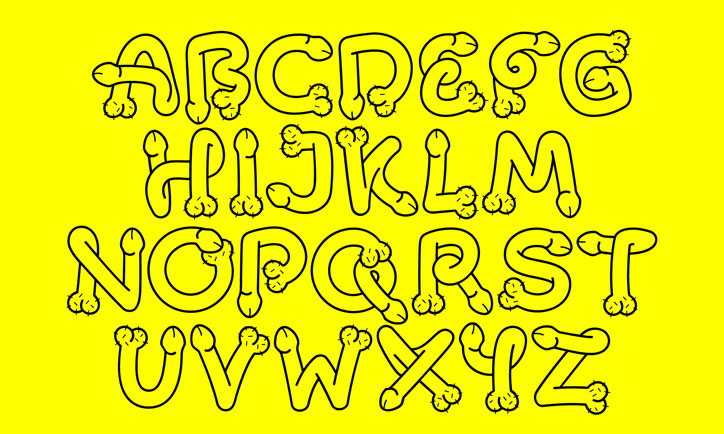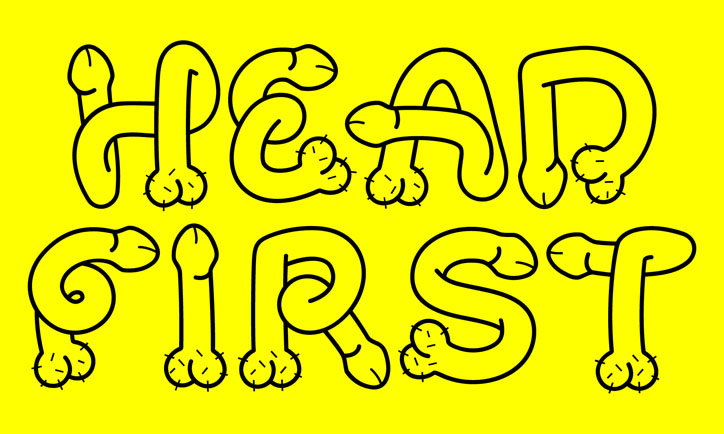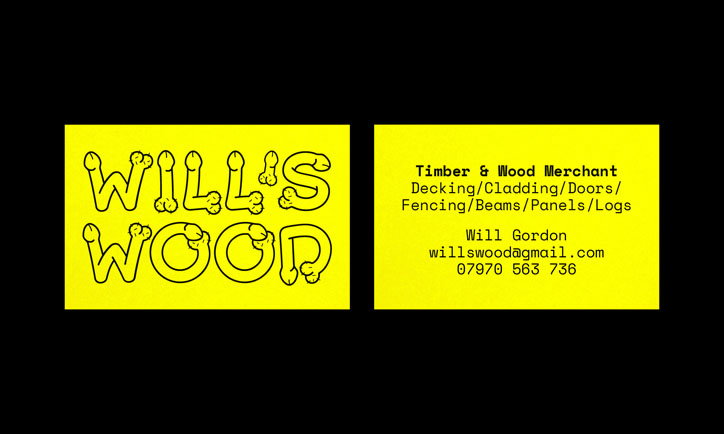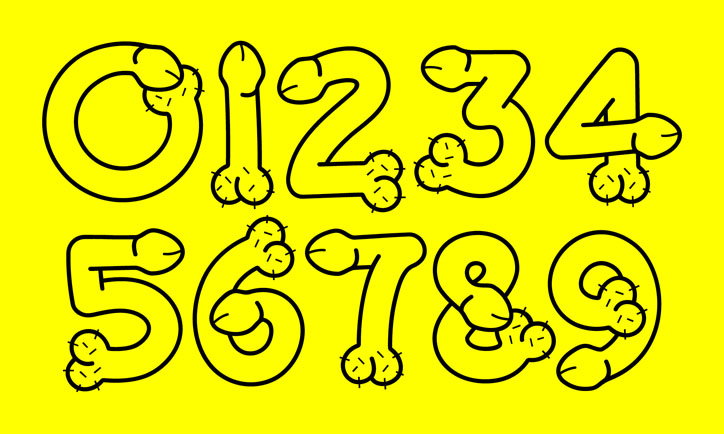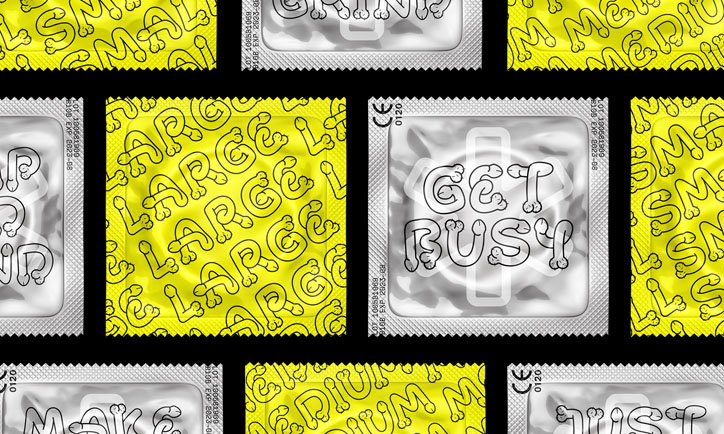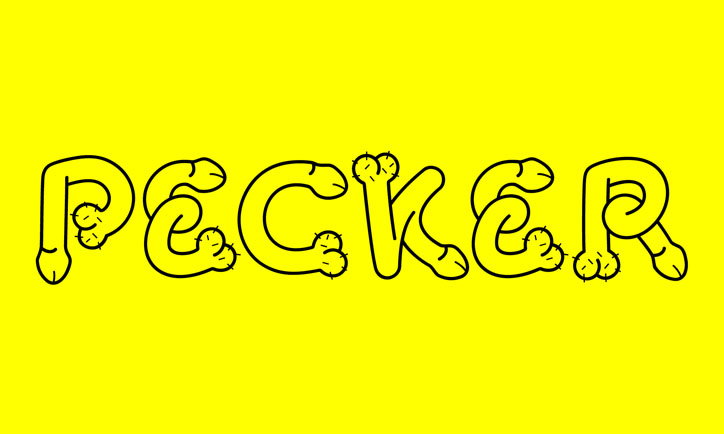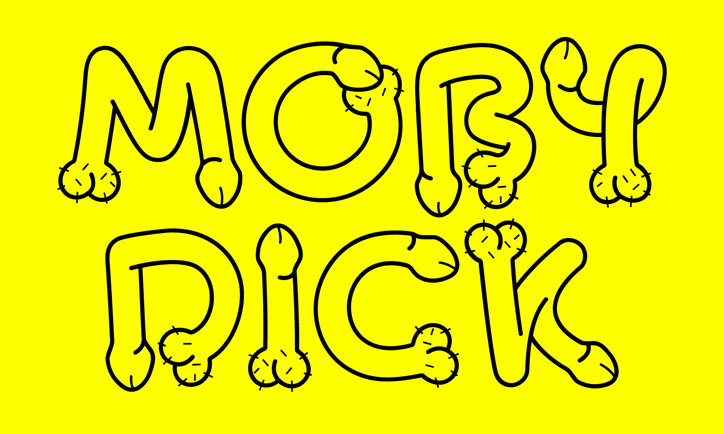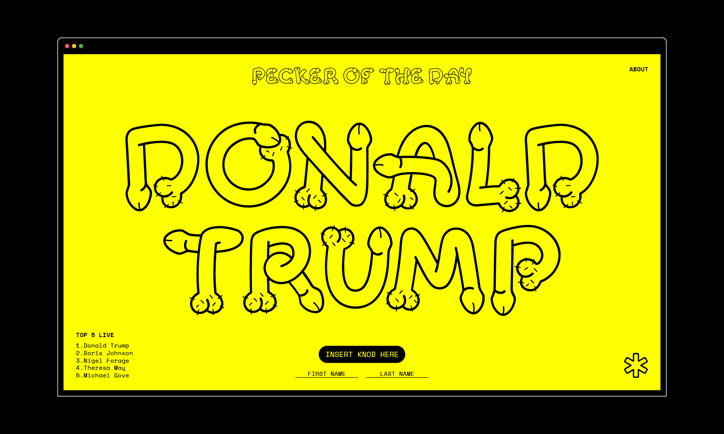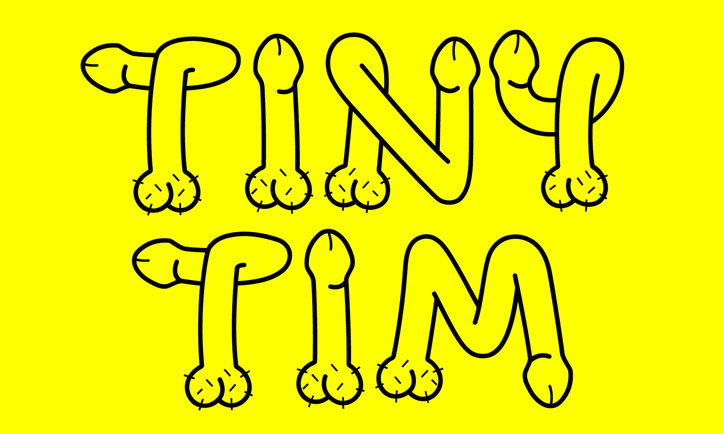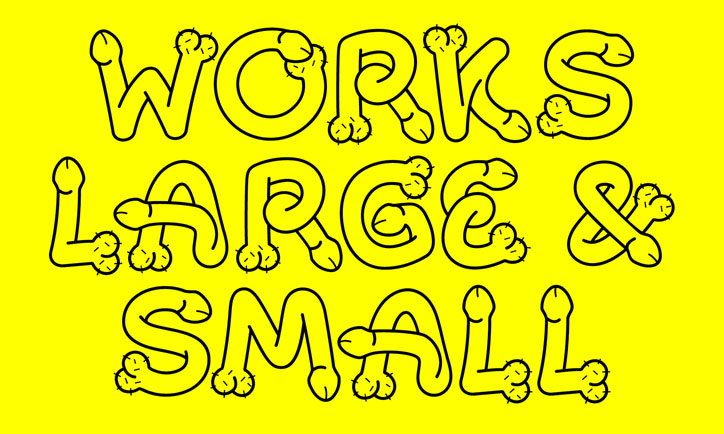
This takes balls: Introducing Dr Pecker, the typeface made from penises
Type designer Daniel Reed has so far used his own foundry for all sorts of typographic experiments, but this latest venture is purposely a bit nuts. Dr Pecker is created entirely from contorted penises, each letter, number and symbol unashamedly featuring the details you would expect from such a creation (finessed with hair), and designed to work in all weights and sizes.
The date of its release on 24 July 2019 was no cock-up either, being the day Britain’s very own Johnson wangled his way to Number 10.
While the A-Z looks like a memorable episode of Naked Attraction, the designer has also explored how the letters look in various packages, spelling out fun phrases such as “Works Large and Small”, “Moby Dick” and “Tiny Tim”, and even a prototype business card for a very cheeky wood merchant.
To promote the new typeface, Daniel has made a microsite to call out the world’s todgers, titled Pecker of the Day, where you can “cast your vote on today’s biggest cock, with a live feed featuring the top five peckers of the day,” Daniel explains. So far Boris, Donald Trump and Katie Hopkins have been popular contenders.
There’s also merch “for all your pecker desires” including T-shirts, tote bags, mugs and condoms. Profits from the typeface and merchandise sales are going to charities for prostate and testicular cancer, so “all this silliness is for a good cause,” Daniel says.